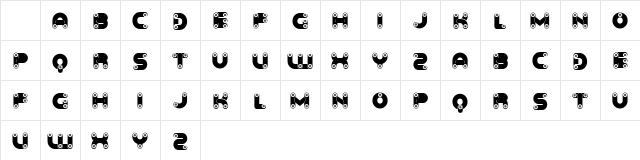
Complete Baked Snails Extravagant Regular glyph index. Displaying only characters natively supported by Baked Snails Extravagant Regular font.
Baked Snails Extravagant is a composed and adaptable typeface that performs quietly and consistently across a wide range of design contexts.
Pro Tip: Use Baked Snails Extravagant in both headline and body roles to test its range before committing to a single application.